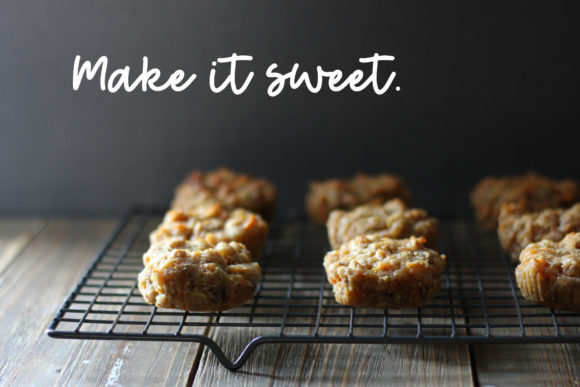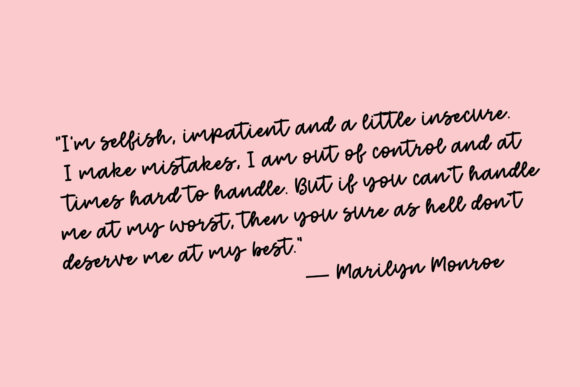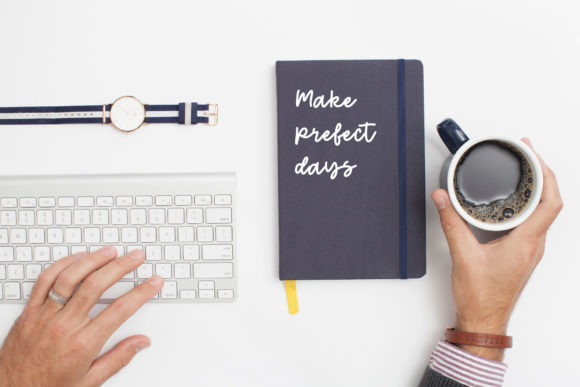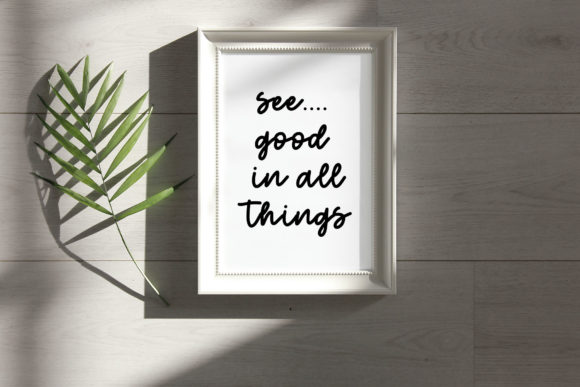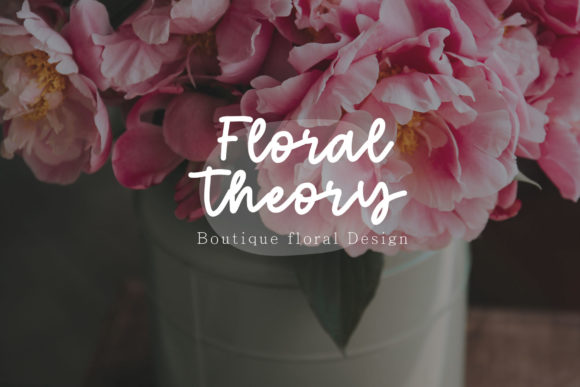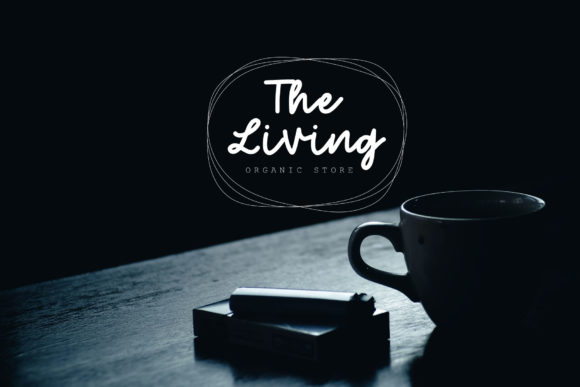
Introduction to My Lady Font
As designers, we’ve all been there – staring at a blank canvas, trying to bring our creative vision to life. And sometimes, all it takes is the perfect font to elevate our design project from bland to grand. For me, that moment came when I discovered the My Lady Font. Its elegant, simple design effortlessly adds a touch of sophistication to any creative project, making it a valuable addition to any designer’s toolkit.
What sets My Lady Font apart is its ability to seamlessly blend into the background, much like a transparent background on a design project. This allows the focus to remain on the content, rather than the font itself. Whether you’re working on a high-quality brochure, a website, or any other design project, My Lady Font is sure to be a reliable design resource.
Key Features of My Lady Font
- Unique, elegant design with a touch of sophistication, making it perfect for creative projects that demand refinement and poise.
- Perfect for use in a variety of design contexts, including logos, typography, and other creative projects that require a high-quality font.
Honest Review: My Lady Font
As a designer, I’m always on the lookout for high-quality design resources to elevate my creative projects. My Lady Font caught my attention, and I was excited to give it a try.
- Clean and elegant design: My Lady Font has a sophisticated and refined look that’s perfect for luxury or high-end branding projects.
- Limited font styles: While My Lady Font has a beautiful and elegant design, it’s limited to a single font style, which might not be suitable for projects requiring a more extensive font library.
- Not suitable for bold text: The font is designed for elegant and refined text, but it may not be the best choice for bold or attention-grabbing text.
Overall, I’m impressed with My Lady Font, and I would recommend it for designers working on high-quality, creative projects that require a touch of elegance. Its transparent background and free download make it an excellent design resource to have in your toolkit.
Tips for Getting the Most Out of My Lady Font
To get the most out of My Lady Font, consider the following tips: 1) Use My Lady Font with a transparent background to create a subtle and elegant look. 2) Experiment with different font sizes and styles to find the perfect combination for your design. 3) Use My Lady Font in combination with other high-quality design resources to create a cohesive and professional-looking design.
Common Use Cases for My Lady Font
My Lady Font is commonly used in a variety of